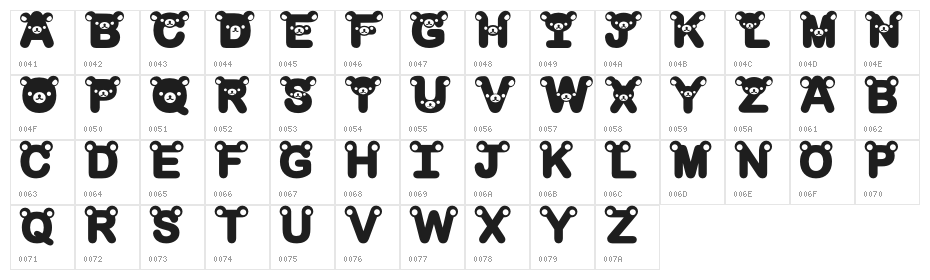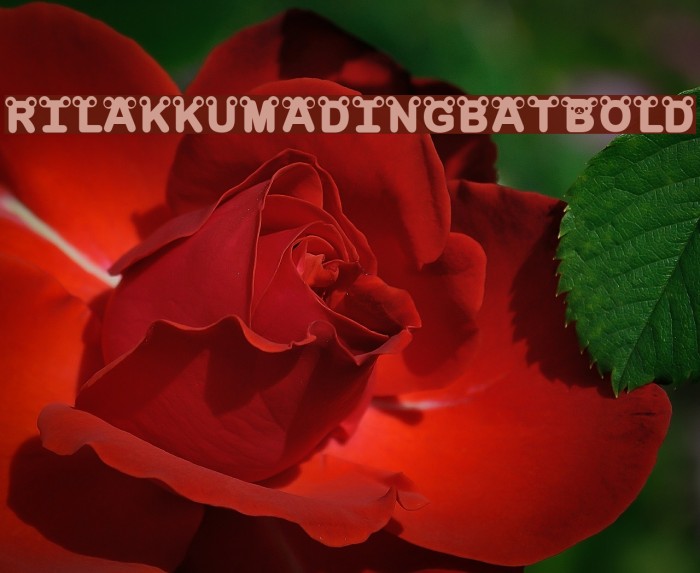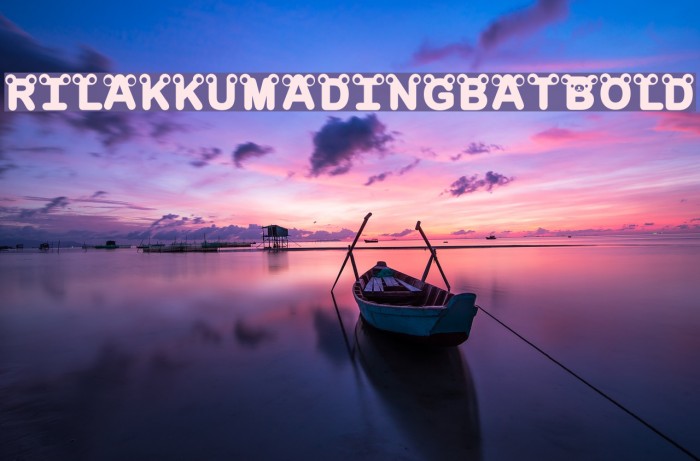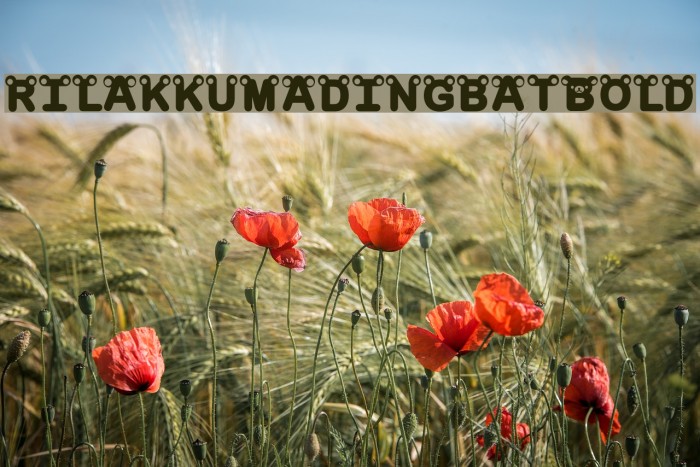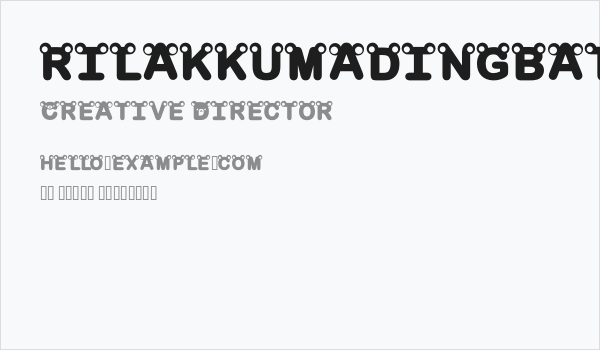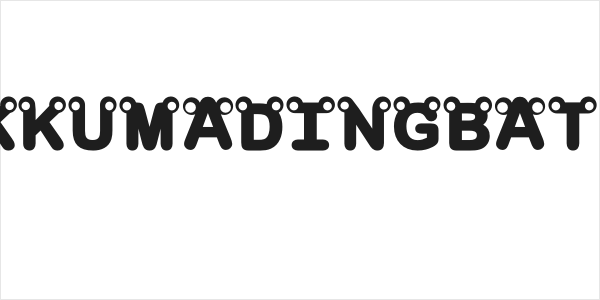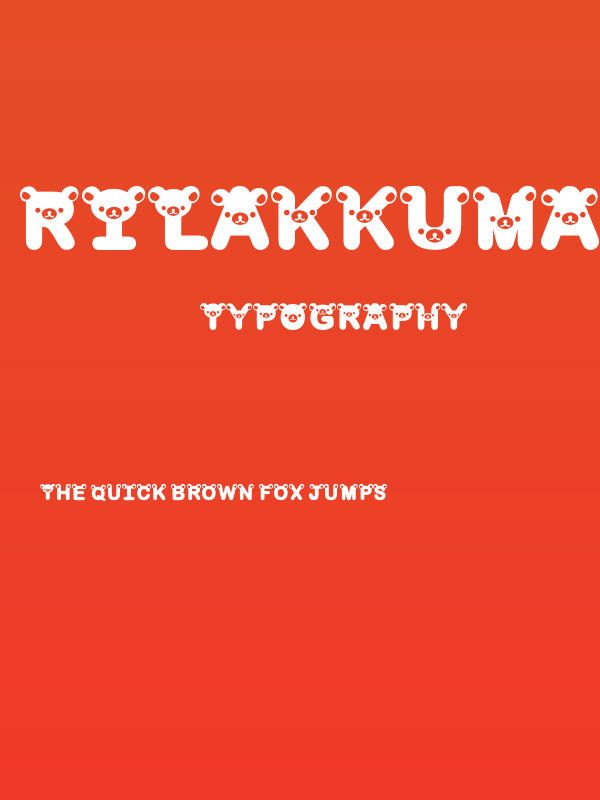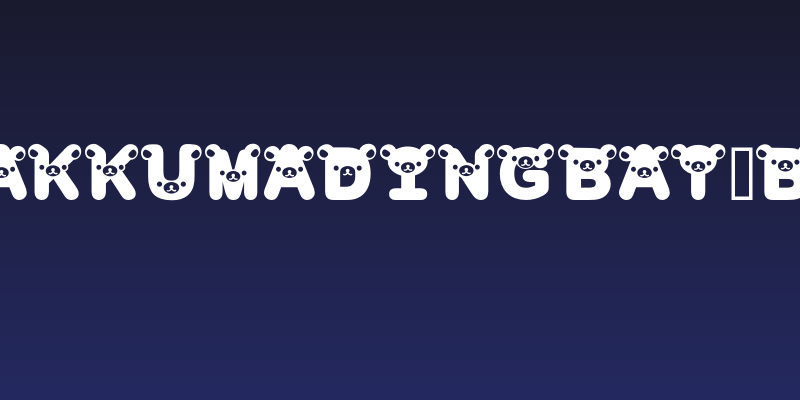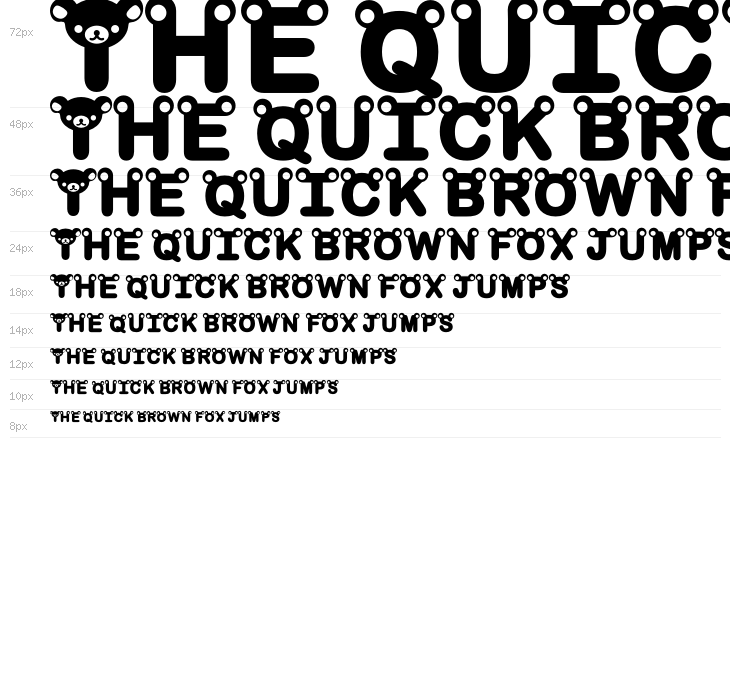
rilakkumadingbat-Bold Font
rilakkumadingbat-Bold Description
This playful and whimsical font features bold, rounded letters with charming bear faces integrated into the design. Each character is adorned with small, circular ears, giving it a unique and endearing appearance. The font maintains a consistent thickness throughout, emphasizing its boldness and making it highly legible. The overall style is decorative and fun, suitable for projects that require a touch of personality and creativity. The spacing between characters is normal, ensuring readability while maintaining its playful aesthetic.